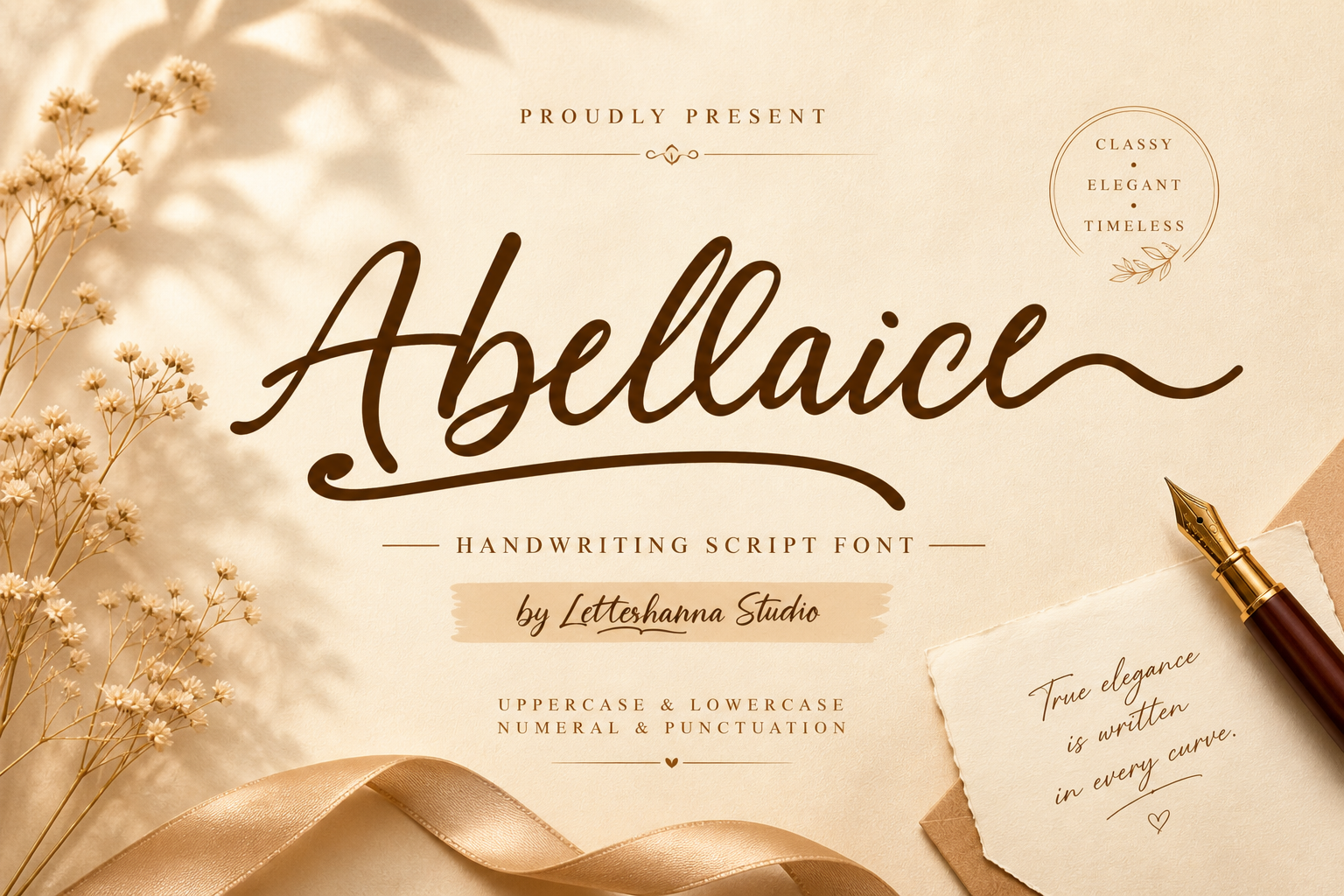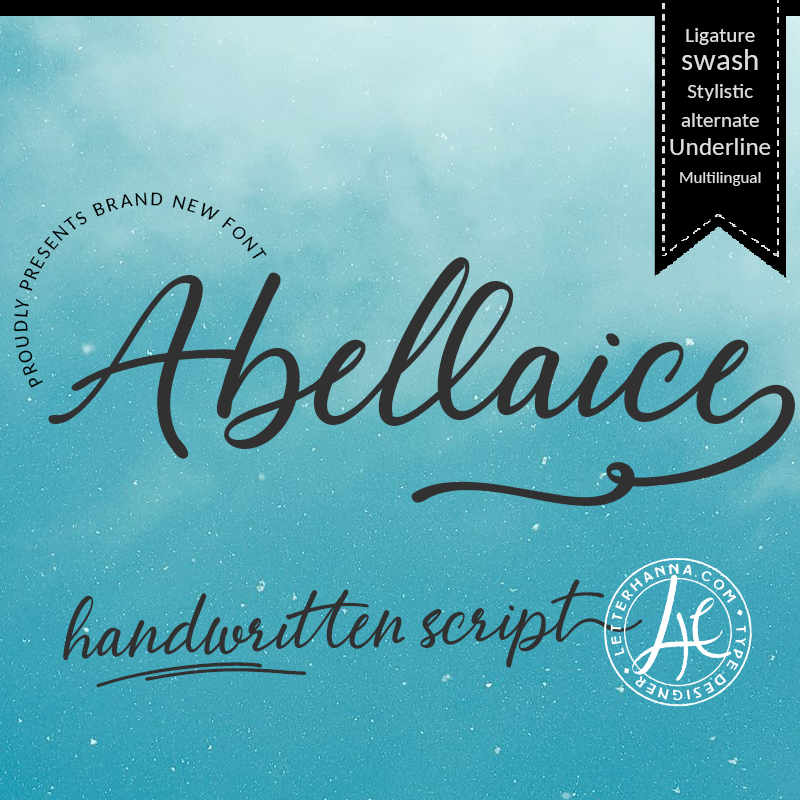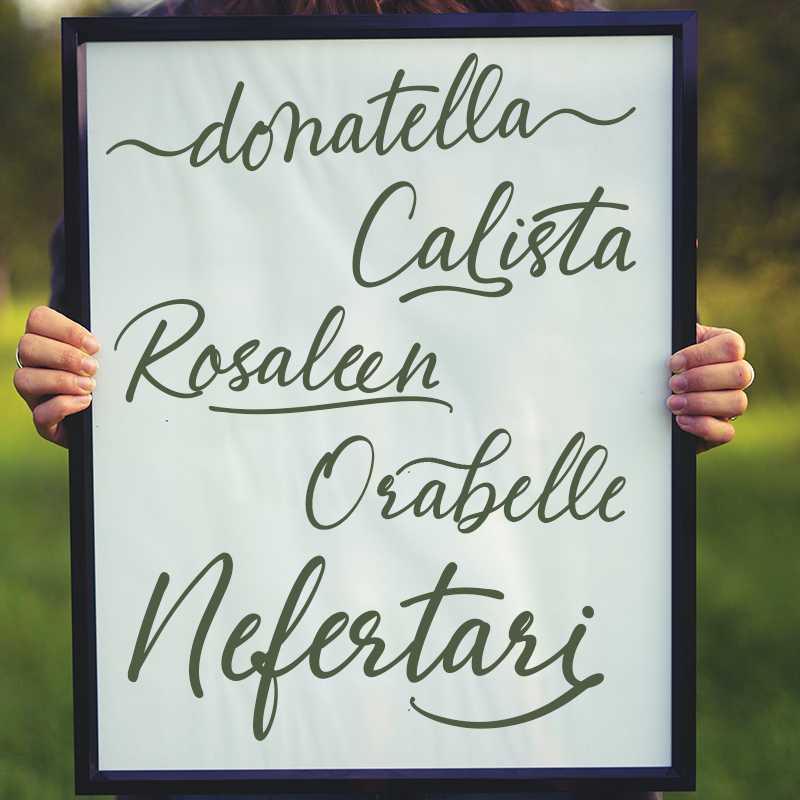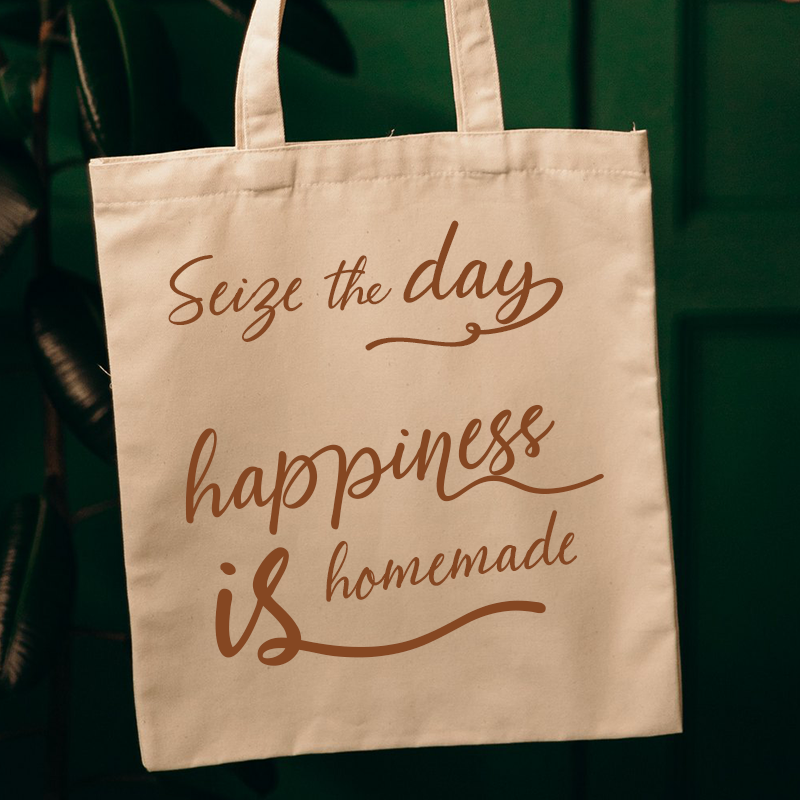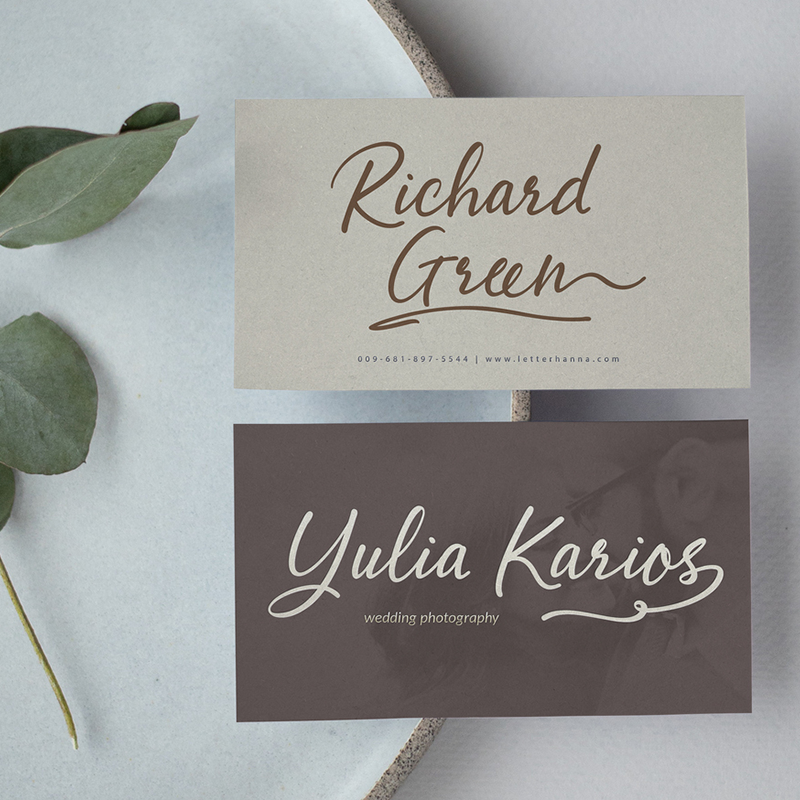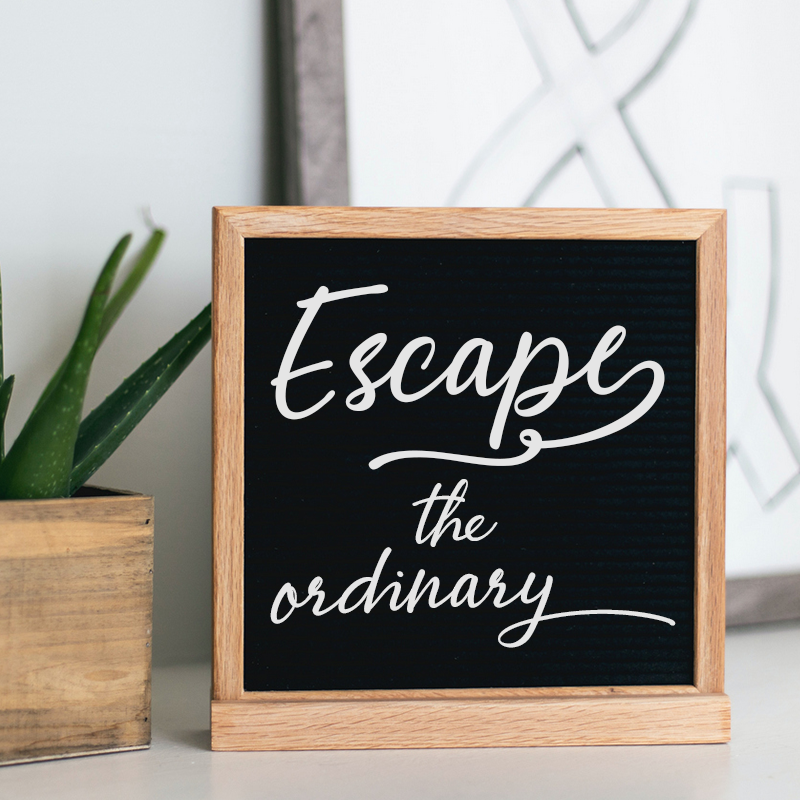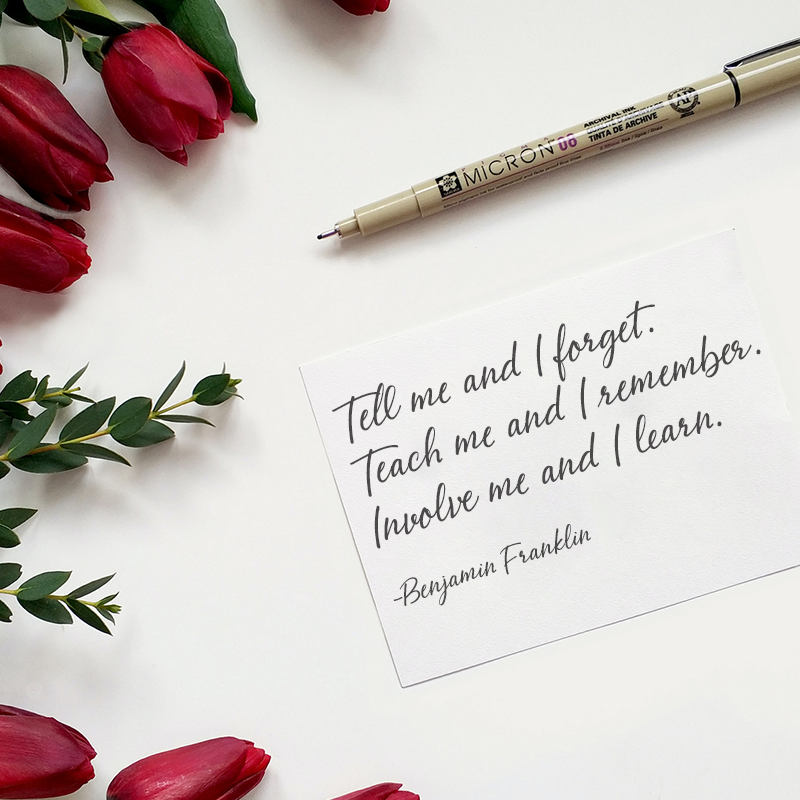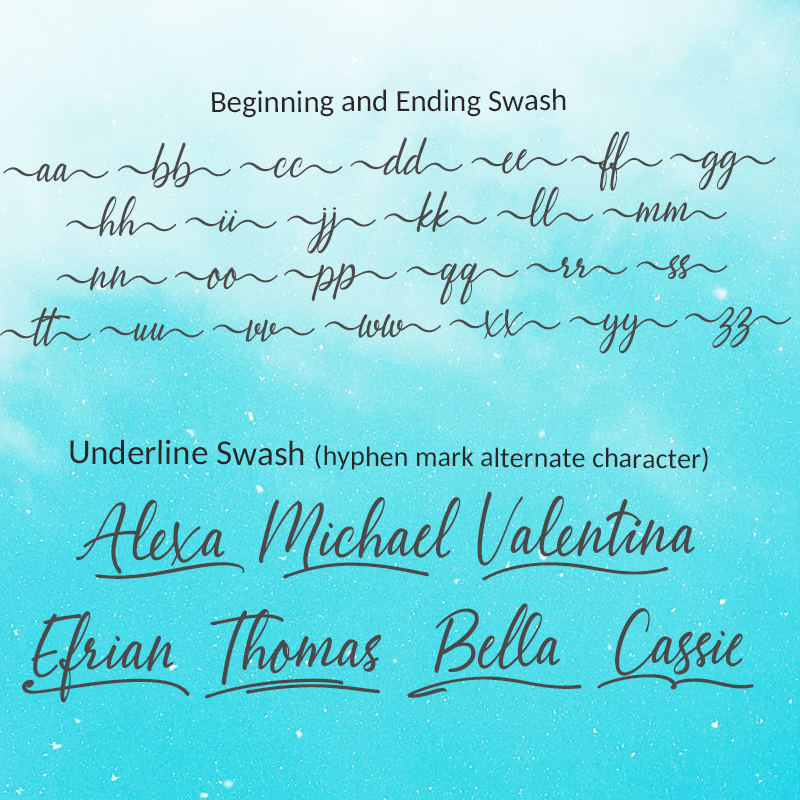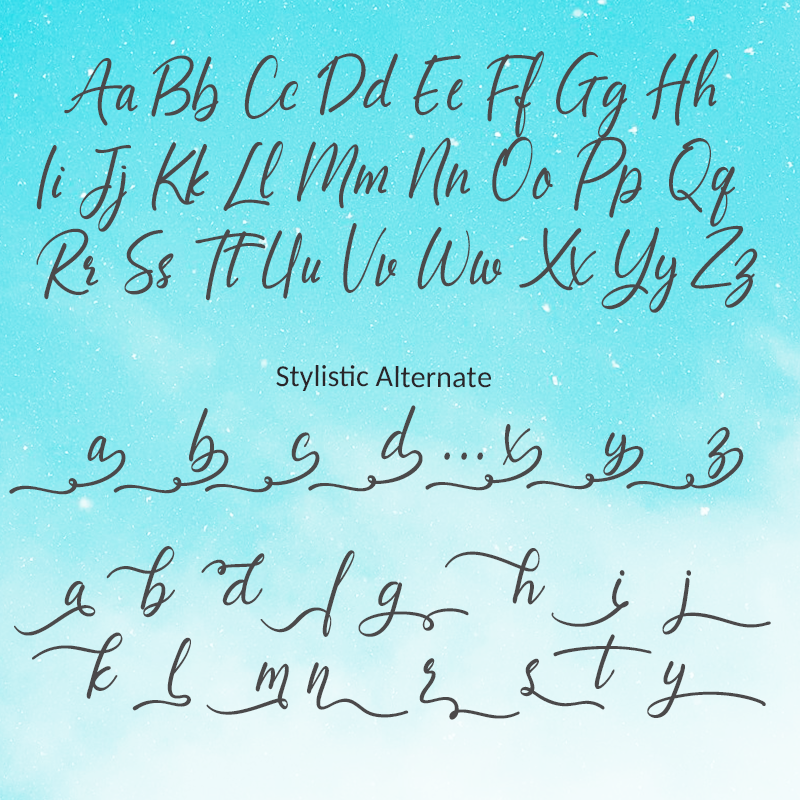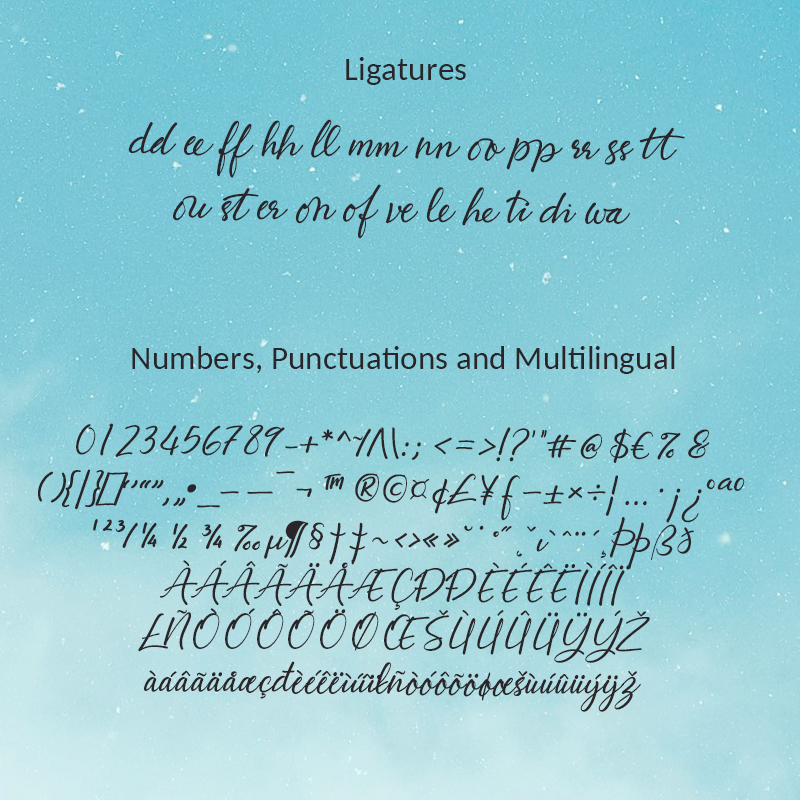
Abellaice Script Font is a graceful script font. Fall for its ravishing style and use it to create gorgeous wedding invitations, beautiful stationary art, eye-catching social media posts, and much more! Abellaice Script is PUA encoded which means you can access all glyphs and swashes with ease!
Abellaice Script is a font with the vibe of real hand lettering, with a lot of swashes, ligatures and stylistic alternate, Abellaice Script Font is perfect for many different project such as logos & branding, invitation, wedding designs, social media posts, advertisements, product packaging, product designs, label, photography, watermark, special events or anything.
– Uppercase and Lowercase letters
– Multilingual Support
– Ligatures
– Beginning and ending swashes
– Underline swashes
– Stylistic alternate.